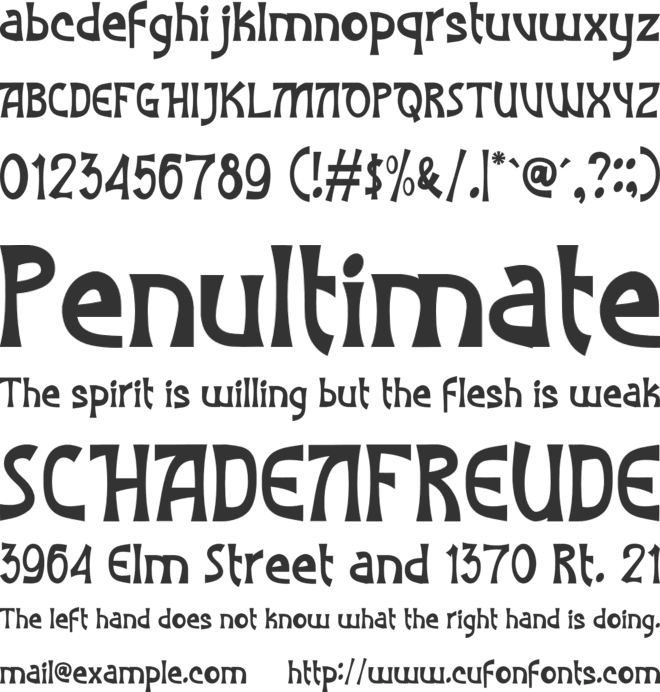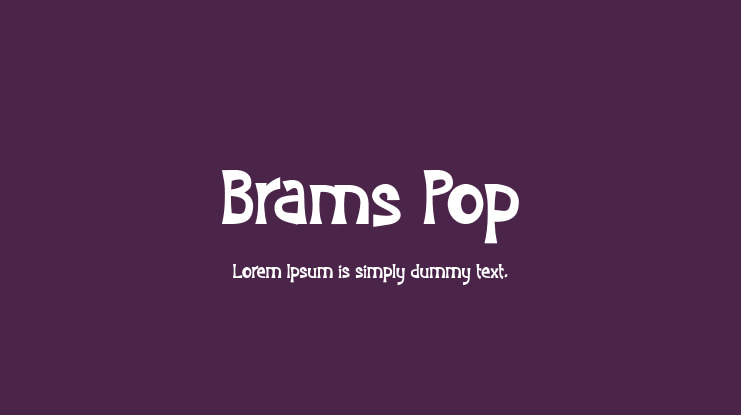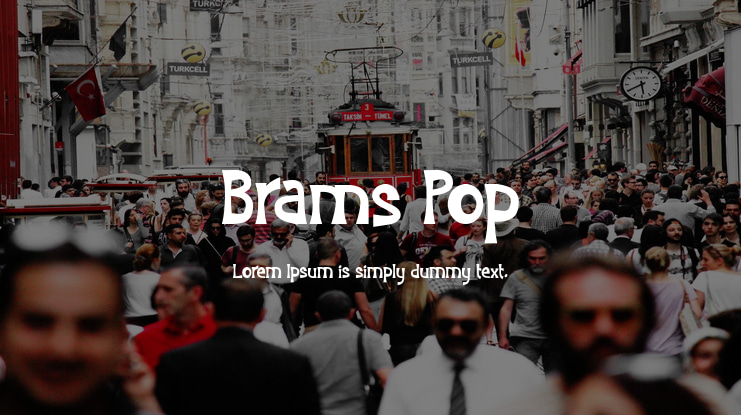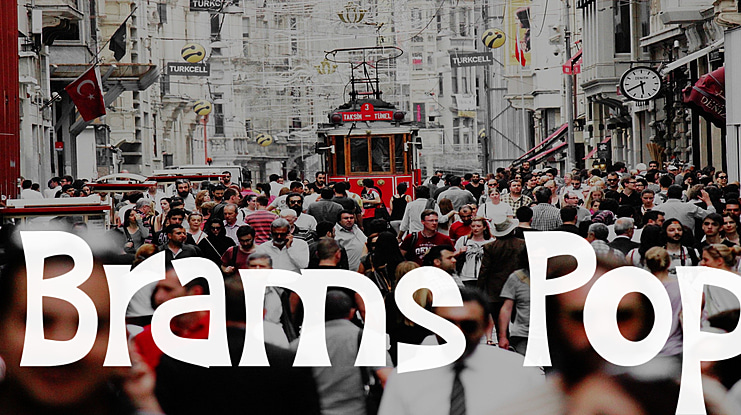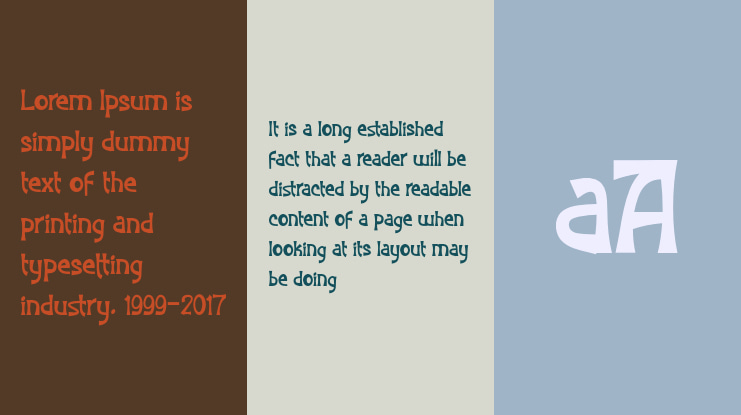
Brams Pop Font
Display Studio
Introducing our new release, Brams Pop Modern Display Typeface. This typeset is perfect for brand logo, invitations, greeting card, or even any kind of project. With multilingual feature and style variations, this typeface would further enhance the aestethical aspect of your work.Click our website :https://displaytypefont.com/product/brams-pop/